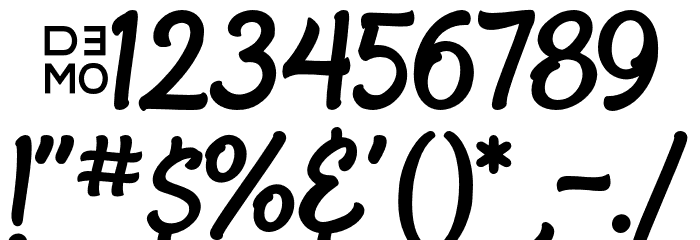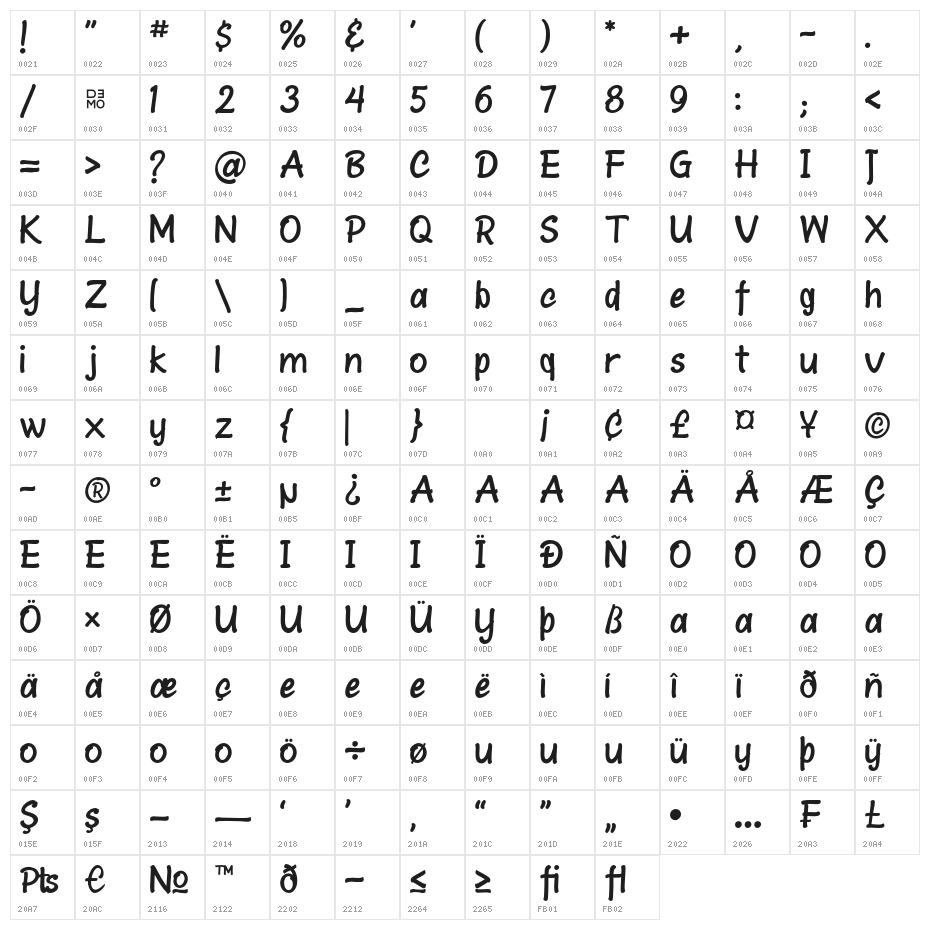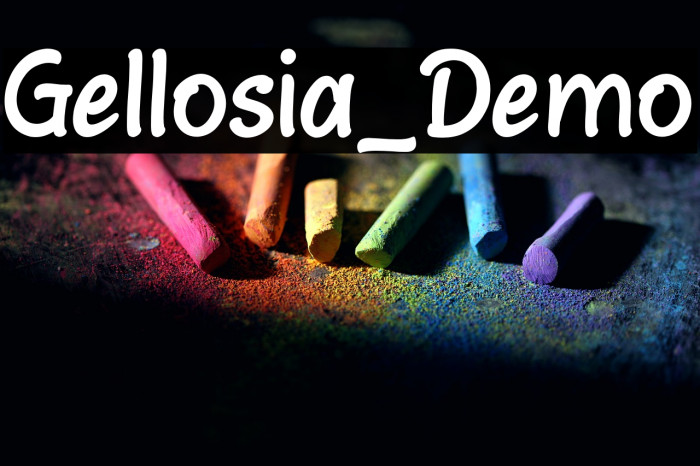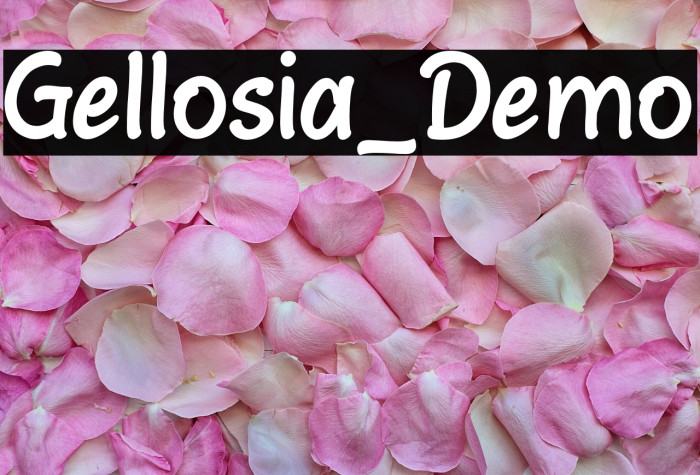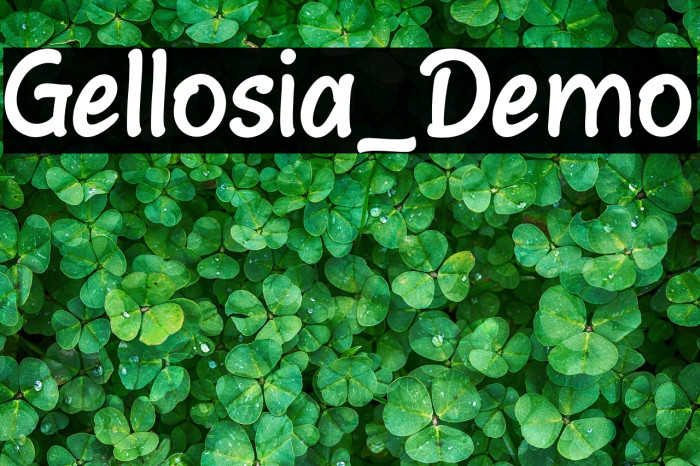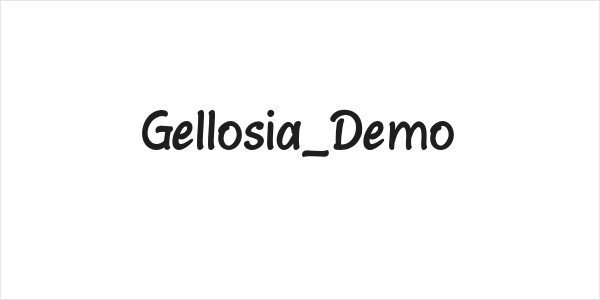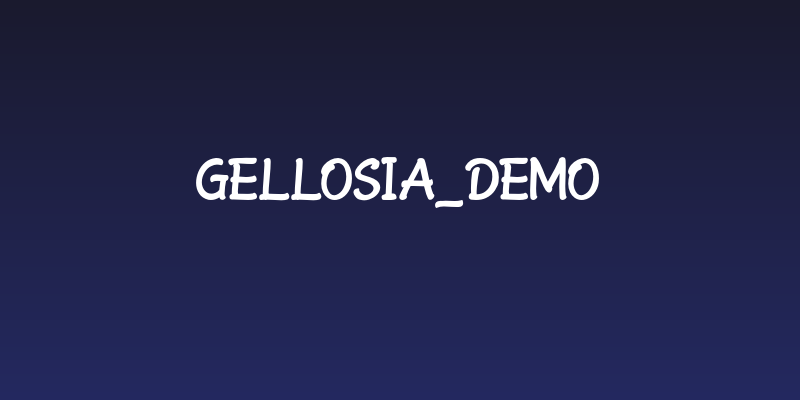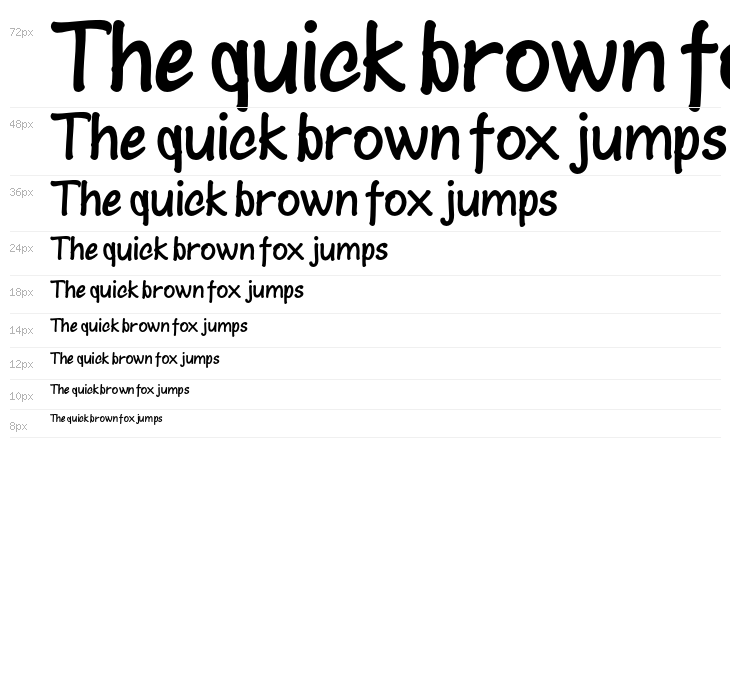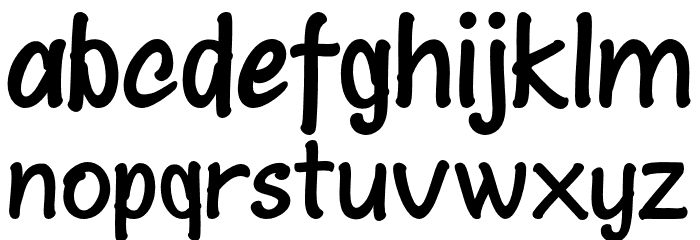
Gellosia_Demo Font
Gellosia_Demo Description
This font features a playful and bold handwritten style, characterized by its rounded and slightly irregular letterforms. The uppercase letters maintain a consistent height, while the lowercase letters exhibit a charming, casual flow. The numbers are bold and clear, ensuring readability. Special characters are well-integrated, maintaining the overall aesthetic. The font's strokes are thick, providing a strong presence on the page, yet the rounded edges soften its appearance, making it approachable and friendly.
| Proposed Projects | Ideal for children's books, playful branding, greeting cards, and casual invitations. |